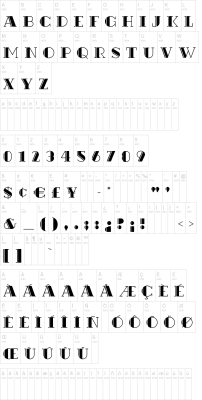
Aceh Font is perfect for Indonesian cultural events, Southeast Asian heritage materials, Islamic calligraphy projects, traditional Indonesian restaurant branding, Acehnese cultural celebrations, archipelago tourism promotions, Indonesian language publications, Islamic educational materials, traditional craft workshops, and authentically Indonesian marketing communications.
Aceh Font is exciting because it honors the rich cultural heritage and spiritual depth of Aceh Province with its gracefully structured letterforms that echo the traditional architecture of grand mosques and carry the profound wisdom of Indonesia's westernmost gateway where Islamic scholarship has flourished for centuries. Its culturally distinguished character design reflects both the maritime trading heritage that connected Aceh to the wider Islamic world and the resilient spirit that has preserved Acehnese culture through generations of change, making it perfect for brands celebrating Indonesian heritage and Islamic cultural values.
Aceh Font family includes light, regular, medium, bold, and black weights, each with corresponding italic versions. The font family also features Indonesian ornaments, Islamic-inspired ligatures, cultural symbols, and Southeast Asian decorative elements that enhance its authentic aesthetic and regional versatility.
This culturally authentic typeface represents the perfect fusion of Indonesian heritage and Islamic artistic tradition. Aceh Font Free Download allows designers to explore its cultural possibilities before making a commercial commitment. The font's ability to convey both regional authenticity and spiritual depth makes it ideal for cultural institutions, Indonesian businesses, and Islamic organizations seeking to honor Acehnese traditions with genuine respect and cultural sensitivity.
Whether you're developing Indonesian cultural identities, creating Islamic educational materials, or designing Southeast Asian heritage communications, Aceh Font brings an unmistakable sense of cultural authenticity and spiritual elegance to every project. Its distinguished character and Acehnese heritage create powerful connections that resonate with Indonesian communities and audiences appreciating Southeast Asian cultural richness.
The font's versatility excels in cultural and religious environments where tradition and authentic representation are sacred. Its respectful character makes it particularly effective for Indonesian cultural centers, Islamic institutions, Southeast Asian restaurants, and heritage organizations seeking to establish meaningful relationships with Indonesian communities and audiences who value authentic cultural expression and Islamic artistic traditions.
For designers working on projects requiring genuine Indonesian cultural authenticity and Islamic appeal, Aceh Font provides an exceptional solution. Its culturally distinguished presence and comprehensive Indonesian elements offer the tools needed for creating truly respectful communications, while its spiritual elegance ensures your designs honor the rich heritage and cultural sophistication that defines authentic Acehnese traditions and Indonesian Islamic cultural excellence.